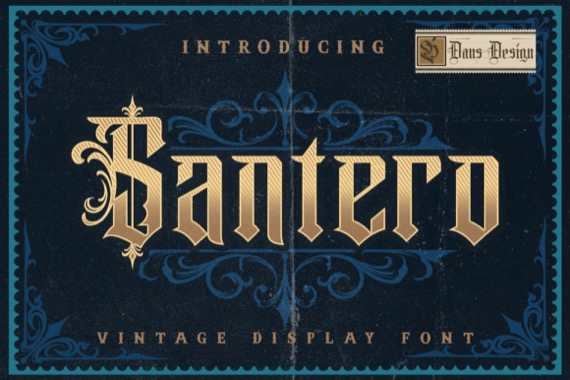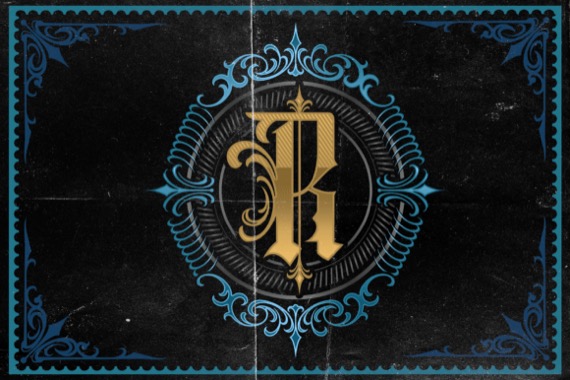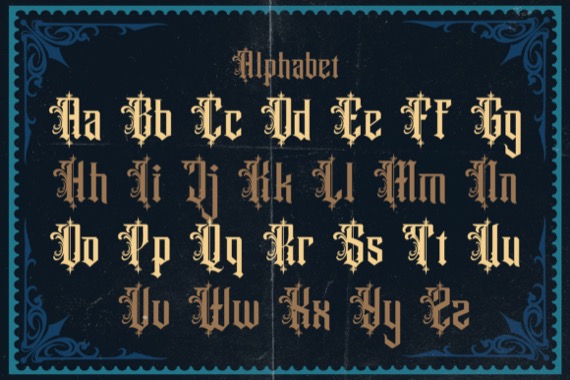
Santero Modern Font by Dans Design is a bold and thick lettered blackletter font. Add it confidently to your projects, and you will love the results. This font is PUA encoded which means you can access all of the glyphs and swashes with ease!
Santero Modern Blackletter Font